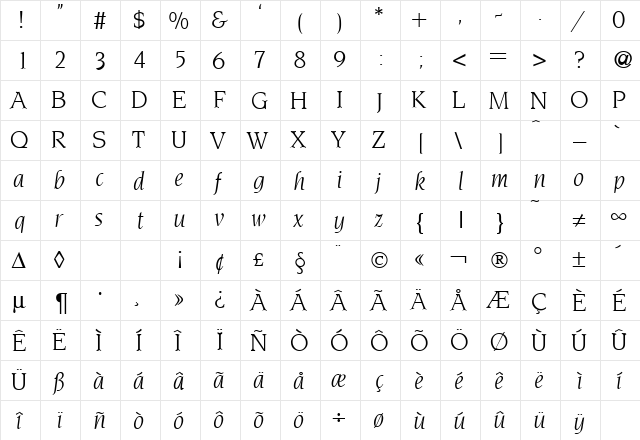
Novelty RegularItalic
Design Context for Novelty Typeface
Novelty offers clean, dependable letterforms without strong stylistic allegiance, making it a practical choice for designers who need flexibility. The slanted form adds forward momentum and visual energy.
Pro Tip: Use Novelty for emphasis, pull quotes, and subheadings where its slanted energy can add rhythm to the layout.